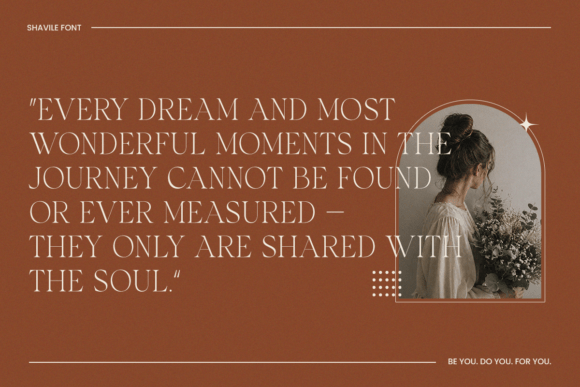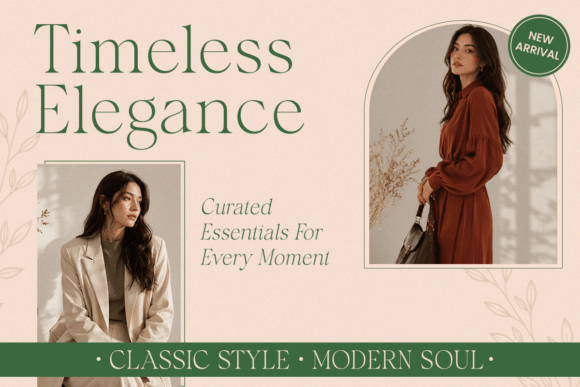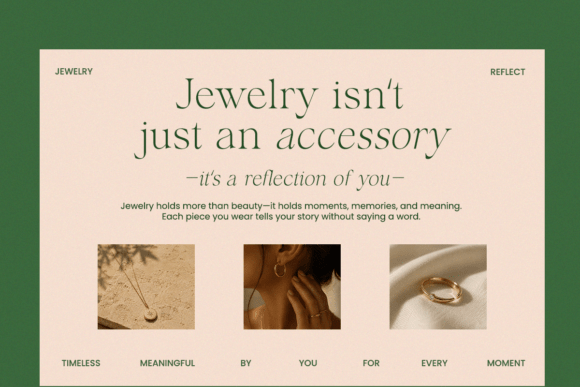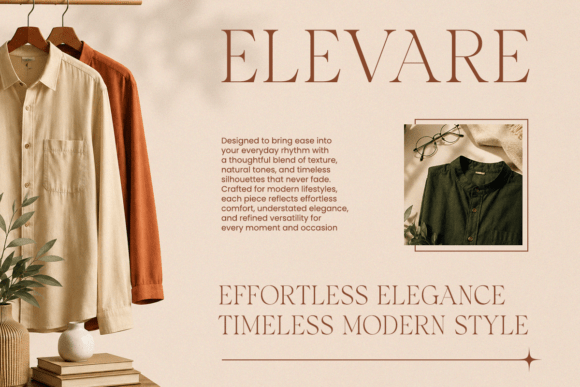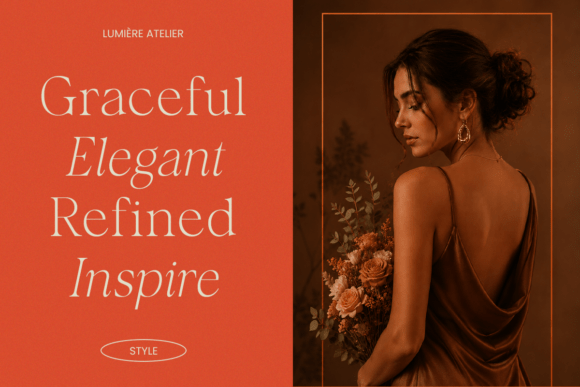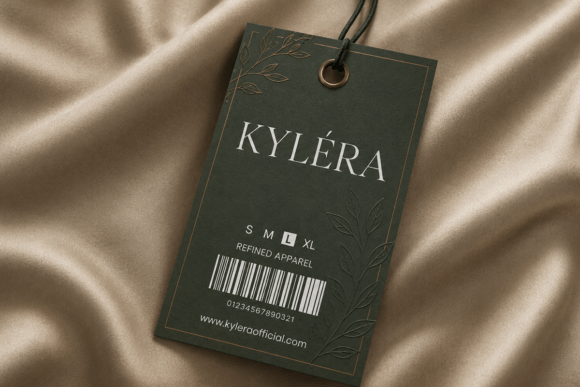
Introduction to Shavile Font
Shavile is an elegant fashion serif font crafted for luxury branding, high-end editorial design, and sophisticated visual storytelling.
With its graceful letterforms, refined contrast, and timeless serif character, this typeface captures the essence of premium fashion houses, couture campaigns, beauty packaging, and modern lifestyle branding Designed to radiate elegance and confidence, Shavile transforms every word into a statement of style.
Key Features of Shavile Font
Why Choose Shavile Font?